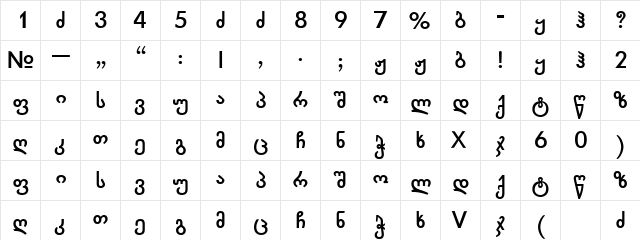
Chveulebrivi Bold From GSH Normal Font Preview
Chveulebrivi Bold From GSH Normal
Chveulebrivi Bold From GSH Normal Font Details
Design Context for Chveulebrivi Bold From GSH Typeface
Chveulebrivi Bold From GSH is a composed and adaptable typeface that performs quietly and consistently across a wide range of design contexts. Its bold stroke weight gives it real presence on the page.